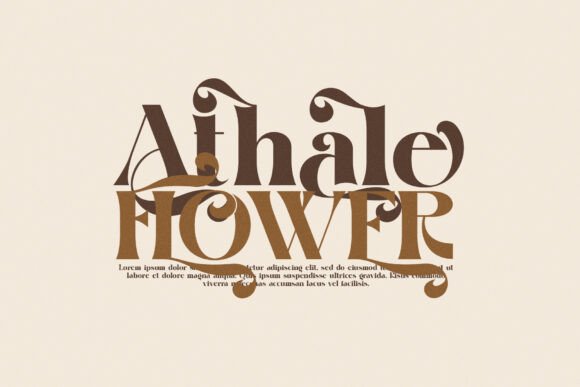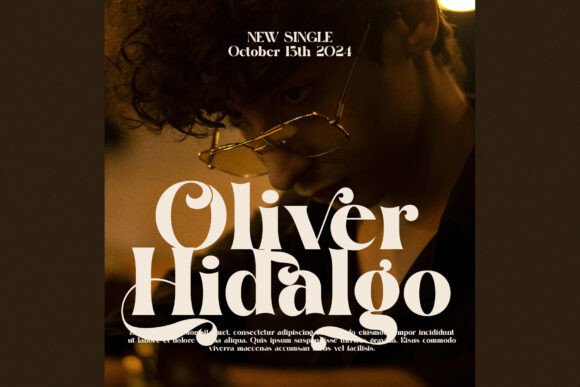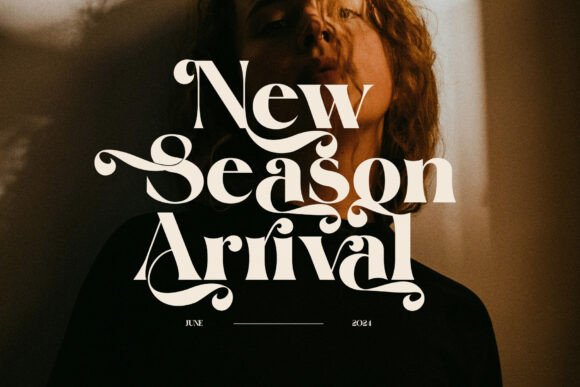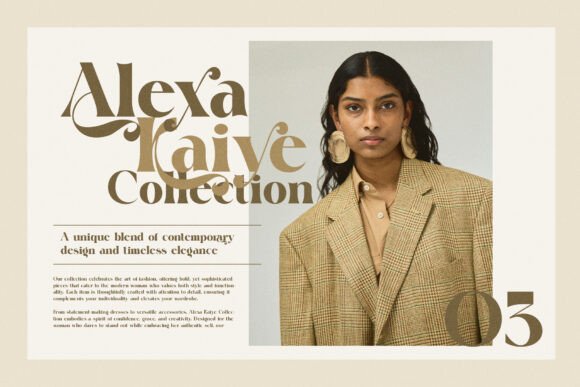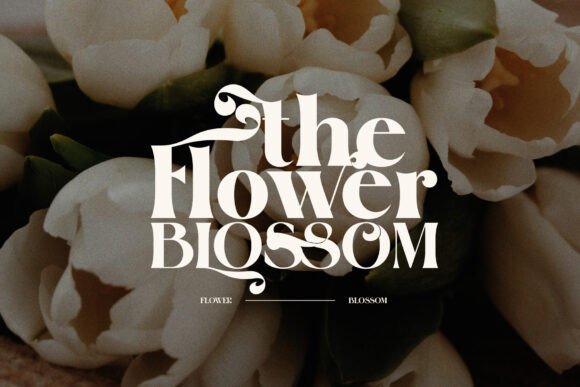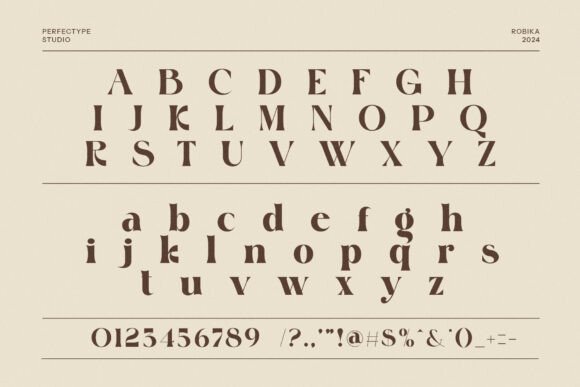
Introduction to Robika Font
As a designer, have you ever found yourself stuck in front of a blank screen, struggling to find the perfect font to elevate your project? You know, that moment when you need to convey a sense of luxury and sophistication, but can’t quite put your finger on the right combination of elegance and innovation. For many of us, this is a common challenge, but with the right design resource, it can be a breeze.
Enter the Robika Font, a game-changing serif typeface that seamlessly combines high-quality craftsmanship with cutting-edge design. Whether you’re working on a logo, branding, website, or advertising campaign, Robika Font offers a unique touch of sophistication that’s sure to make your creative project stand out. With beautifully crafted ligatures and alternate characters, this font is a must-have for any designer looking to add a touch of luxury and professionalism to their work.
Key Features of Robika Font
- High-quality design resource suitable for various creative projects
- Unique, modern design aesthetic that sets it apart from other fonts
Honest Review: Robika Font
I recently stumbled upon the Robika Font, and I must say it’s a game-changer for any creative project that requires a high-quality, stylish font. As a designer, I appreciate fonts that offer a lot of versatility, and Robika Font definitely delivers.
Here are some of the things that I like about the Robika Font:
- ✨ High-quality design: The font is well-designed, with a modern aesthetic that’s perfect for a variety of design projects.
- ⚠️ Limited language support: The font may not support as many languages as some other fonts on the market, which could be a limitation for designers working on international projects.
- ⚠️ Not suitable for all design styles: While the font is versatile, it may not be the best choice for very traditional or formal design projects.
Overall, I’m really impressed with the Robika Font, and I think it’s a valuable addition to any designer’s toolkit. Whether you’re working on a creative project or just need a high-quality font for your design work, I highly recommend giving the Robika Font a try.
Design Resource for Your Creative Project
The Robika Font is a high-quality design resource that can elevate your creative project. With its unique style and transparent background, it’s perfect for adding a touch of sophistication to your designs.
To use the Robika Font in Adobe Photoshop or Illustrator, follow these steps: download the font, install it on your computer, and then access it from the font menu in your application. You can then use the font in your design, adjusting the size and color to suit your needs.
Using Robika Font in PowerPoint/Word
To use the Robika Font in PowerPoint or Word, follow these steps: download the font, install it on your computer, and then select it from the font library in your application. You can then use the font in your design, adjusting the size and color to suit your needs.
The Robika Font is versatile and can be used in a variety of design projects, including:
Tips for Getting the Most Out of Robika Font
To get the most out of the Robika Font, try the following:
- Experiment with different font sizes and colors
- Combine the font with other design elements, such as images and graphics
- Use the font in creative ways, such as in quotes or headlines